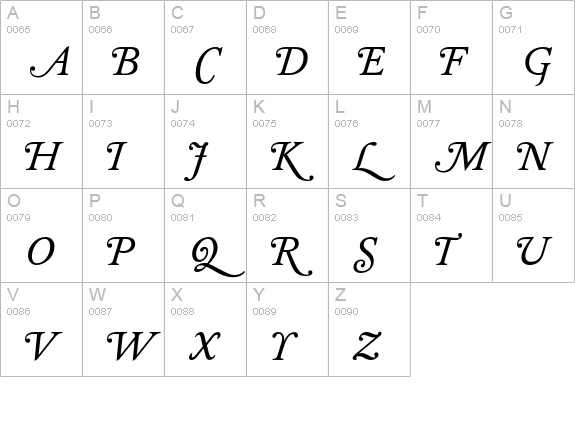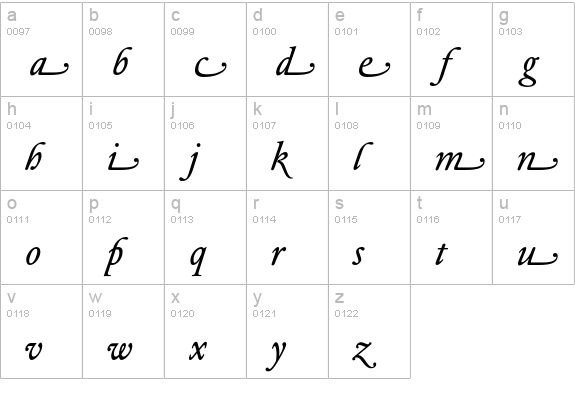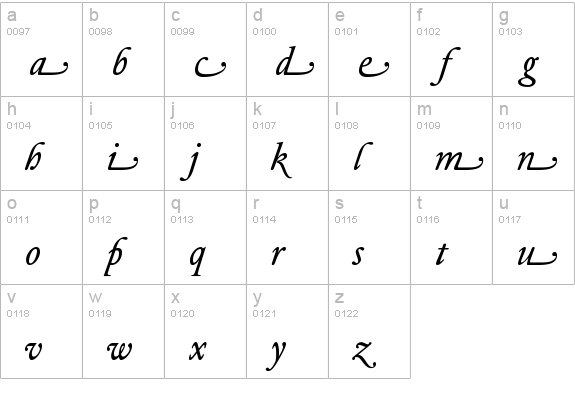
DTLElzevirTBookSwash-Italic Font Details
DTLElzevirTBookSwash-Italic is a distinctive, italic variant in the DTLElzevirTBookSwash typeface family \xE2\x80\x94 well suited to design and typography projects.
The DTLElzevirTBookSwash-Italic font is a stylish and elegant typeface that exudes sophistication and charm. With its graceful swashes and delicate curves, this font is perfect for adding a touch of beauty to any project. Whether you're designing invitations, posters, or branding materials, the DTLElzevirTBookSwash-Italic font will help your text stand out and make a lasting impression. What's even better is that this exquisite font is available for free download at FontsMarket.com. You can easily access this premium font at no cost, making it an excellent choice for designers on a budget or anyone looking to enhance their projects with a touch of class. Don't miss out on the opportunity to elevate your designs with the DTLElzevirTBookSwash-Italic font - download it today and start creating stunning visuals that will leave a lasting impact.